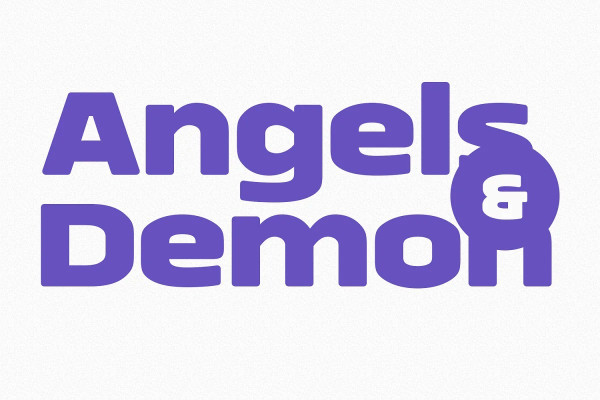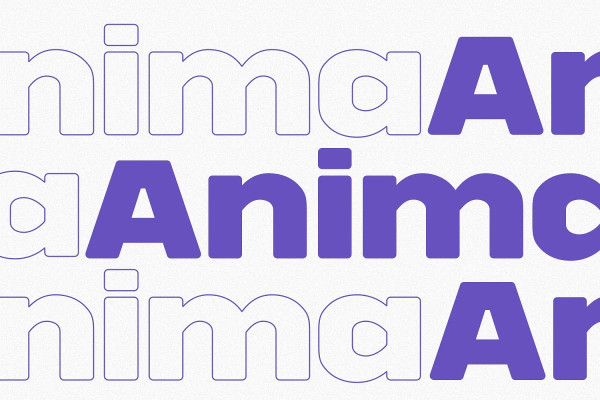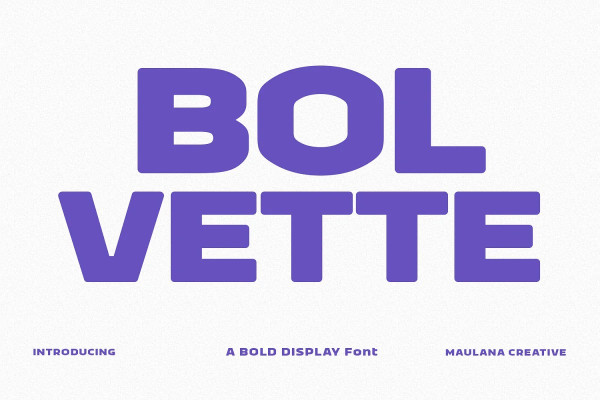
Bolvette Font
Bolvette Font is a wide sans display font. Bold stroke, fun character with a bit of ligatures and alternates. To give you an extra creative work. Bolvettefont support multilingual more than 100+ language. This font is good for logo design, Social media, Movie Titles, Books Titles, a short text even a long text letter and good for your secondary text font with script or serif. Make a stunning work with Bolvettefont.